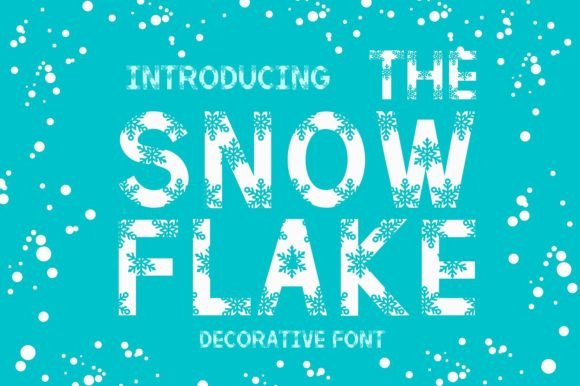
Journey into a winter wonderland of creativity with The Snowflake Font, a decorative font family that captures the essence of Christmas cheer and authenticity. This enchanting font, brought to life by Brown Cupple Fonts, is the perfect touch of festive delight for all your creative endeavors.
Immerse yourself in the magic of The Snowflake Font, a font family that dances and twirls like snowflakes caught in a gentle breeze. Its playful and authentic style adds a touch of whimsy to any project, transforming ordinary words into captivating art.
With The Snowflake Font, your designs will sparkle with the joy of the holiday season. From blog posts that exude warmth and cheer to logos that radiate festive charm, this font family brings a unique and captivating touch to every project.
Envision your Christmas cards adorned with The Snowflake Font, spreading holiday greetings with an extra dose of merriment. Its delicate and intricate details add a touch of elegance, making each card a cherished keepsake.
The Snowflake Font is more than just a font; it's an invitation to embark on a creative journey filled with magic and inspiration. Let your imagination run wild as you create stunning invitations, greeting cards, planners, photo albums, and decorations that capture the spirit of the season.
Step into a world of creative possibilities with The Snowflake Font. Its versatility extends beyond Christmas-themed projects, making it an excellent choice for branding, ads, and social media campaigns that seek to stand out from the crowd.
With The Snowflake Font, your designs will sparkle and shine like freshly fallen snow. Its playful spirit and charming aesthetics will leave a lasting impression on your audience, creating a connection that resonates long after the holiday season has passed.
Embrace the magic of The Snowflake Font and unlock a world of creative possibilities. Its whimsical style and versatility will transform your designs into captivating works of art, leaving a trail of festive cheer and inspiration wherever they go.